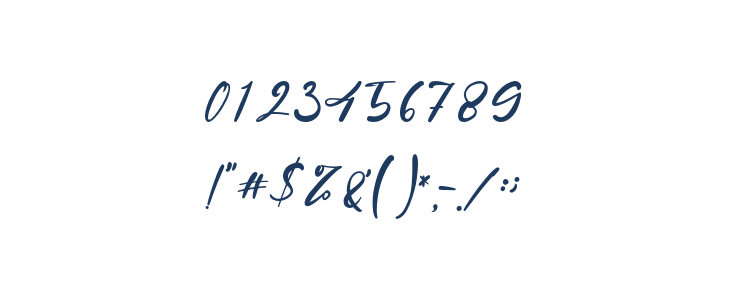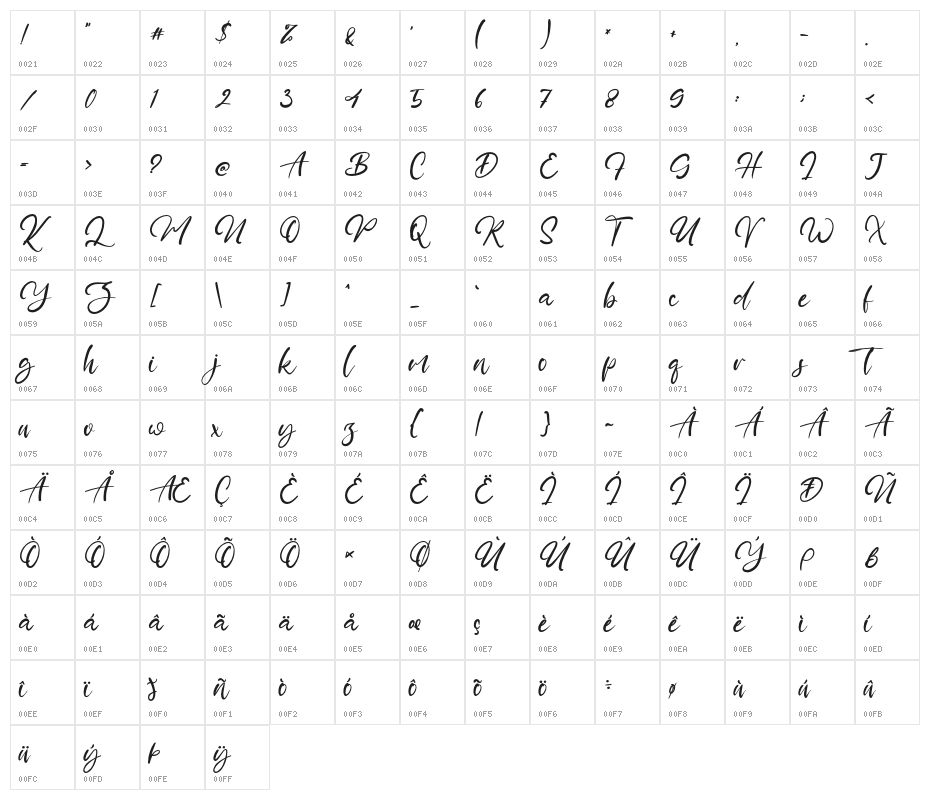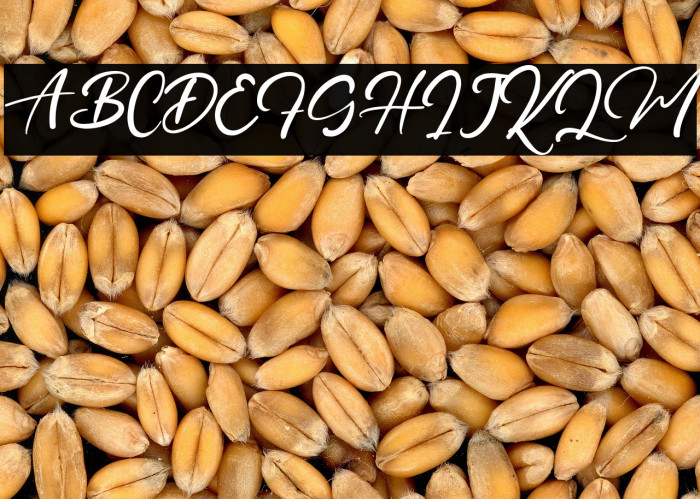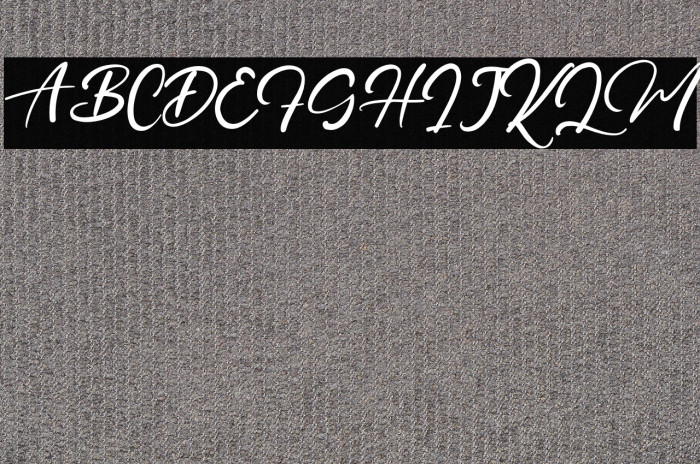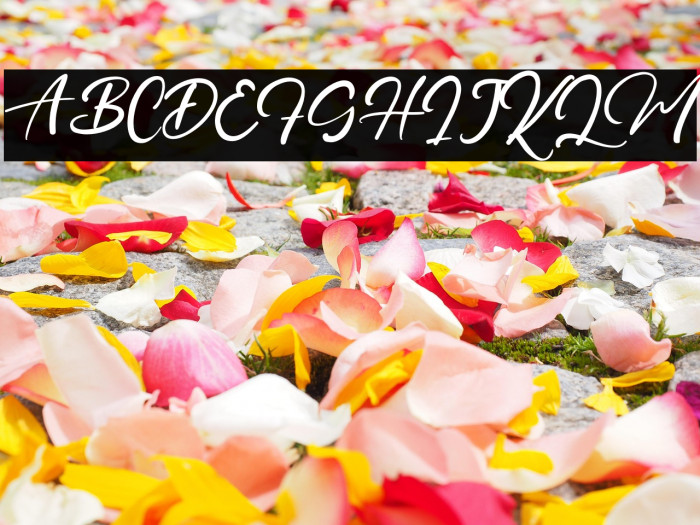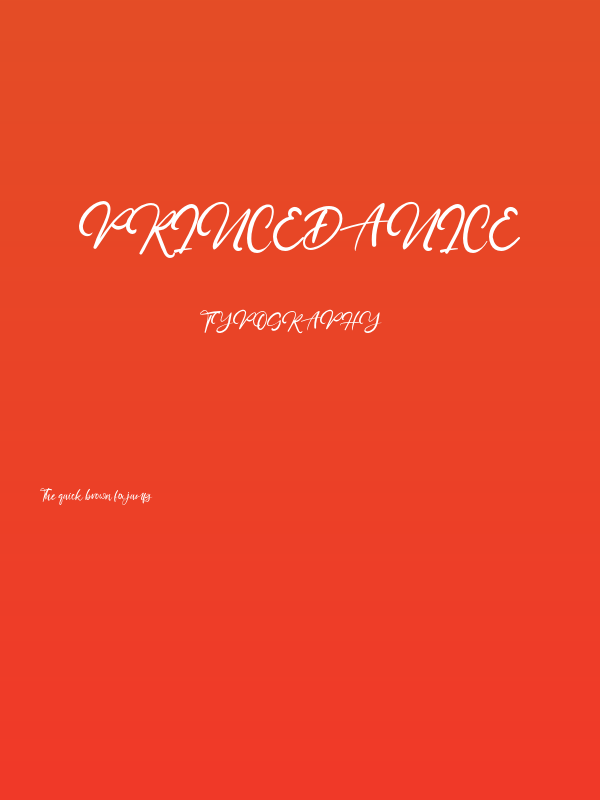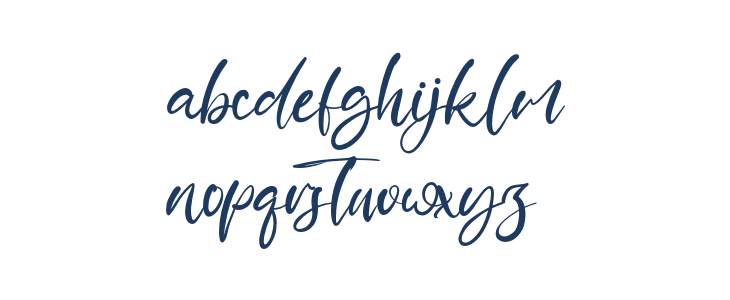
PrinceDanice Font
PrinceDanice Description
This font exudes a lively and elegant script style, characterized by its fluid and connected letterforms. The uppercase letters are bold and sweeping, with a graceful flow that suggests a sense of movement and sophistication. The lowercase letters maintain a consistent rhythm, with loops and curves that enhance its handwritten appeal. Numbers and special characters are crafted with the same attention to detail, ensuring a cohesive look across all elements. This font's dynamic nature makes it perfect for adding a personal touch to any design.
| Overall Style | Elegant |
| Use Case | Logos, Invitations, Branding |
| Proposed Projects | Ideal for wedding invitations, greeting cards, branding projects, and elegant packaging designs. |